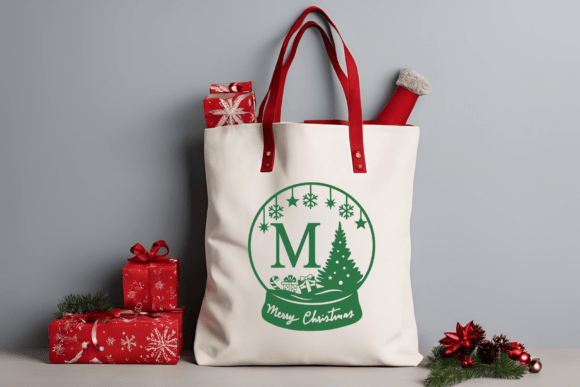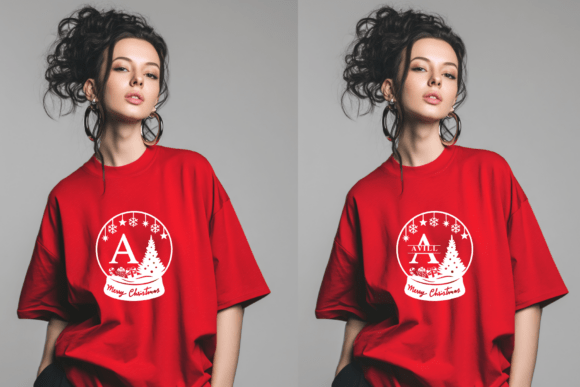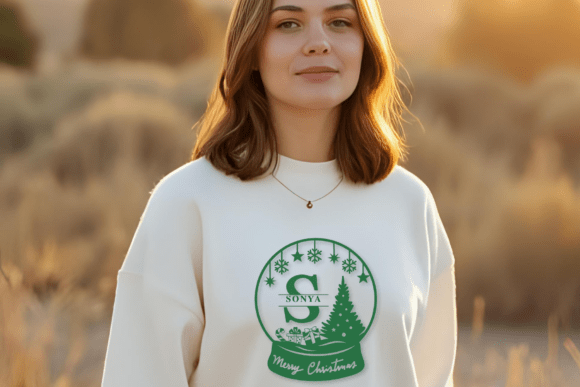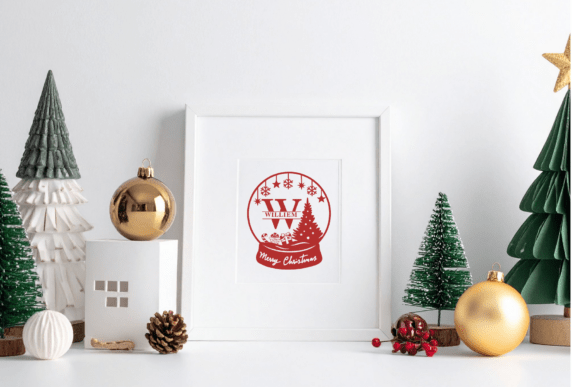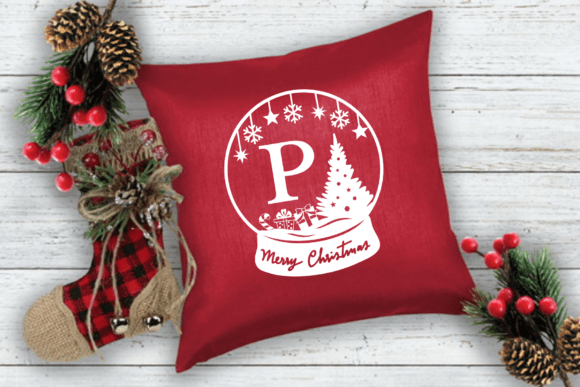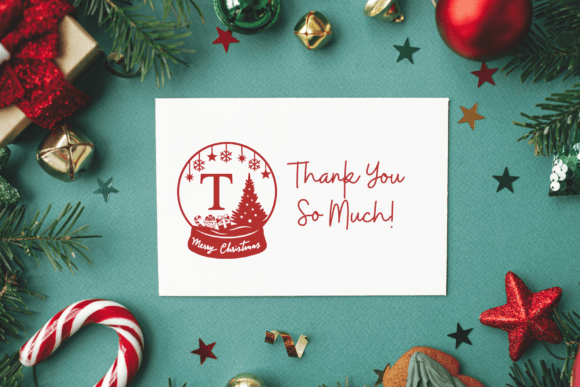
Introduction to Merry Magic Monogram Font
As the holiday season approaches, designers are on the lookout for that special something to make their projects stand out. Perhaps you’re planning a festive holiday card or creating a custom ornament for a loved one. Whatever your creative endeavor, the right font can make all the difference.
Enter the Merry Magic Monogram Font, a delightful Christmas font featuring monogram letters wrapped in snow globe designs with trees, stars, and gifts. This charming font is perfect for adding a touch of festive cheer to your creations, from logos to crafts and decorations. With its magical and joyful warmth, it’s no wonder designers are flocking to this high-quality design resource.
Key Features of Merry Magic Monogram Font
- High-quality, elegant design perfect for creative projects such as invitations, greeting cards, and gift tags.
- Unique monogram design with a transparent background, allowing for easy layering and customization in your design.
- Perfect for adding a touch of magic and whimsy to your designs, making it ideal for holiday-themed projects and celebrations.
Honest Review: Merry Magic Monogram Font
I recently stumbled upon the Merry Magic Monogram Font while searching for a unique design resource for a creative project. I must say, I was quite impressed with the overall quality and style of this font.
- ✨ The font is perfect for adding a touch of magic to any design project, especially those related to the holiday season.
- ⚠️ The font may be too whimsical for some design projects, so it’s essential to use it judiciously.
- ⚠️ Some users may find the font a bit too ornate, which could limit its use in more minimalist designs.
Overall, I’m impressed with the Merry Magic Monogram Font. It’s a high-quality design resource that can add a unique touch to any creative project. With its free download and transparent background, it’s an excellent choice for designers looking for a unique font to spice up their work.
Merry Magic Monogram Font
To get the most out of the Merry Magic Monogram Font, use it in combination with other design elements, such as glittery textures and colorful backgrounds. Experiment with different font sizes and colors to create a unique look.
The Merry Magic Monogram Font is perfect for:
- Wedding invitations and decorations
- Holiday cards and gift tags
- Children’s party decorations and invitations
- Magical and whimsical designs
Yes, the Merry Magic Monogram Font is designed to be a high-quality design resource. Its unique and elegant design makes it perfect for a variety of creative projects, from wedding invitations to holiday cards.